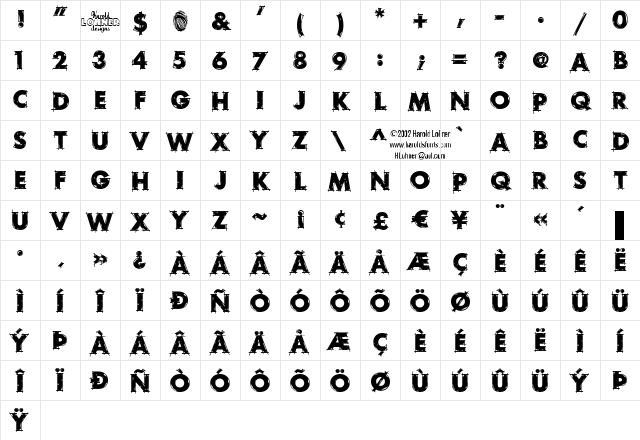
Rough Draft Regular Free Font
Rough Draft Regular
Design Context for Rough Draft
Rough Draft embraces imperfection - its rough, textured character adds raw authenticity to designs that want to feel lived-in and unconventional.
Pro Tip: Use Rough Draft at larger sizes where the texture and irregularity of each letterform can be clearly seen - it loses its character at small sizes.